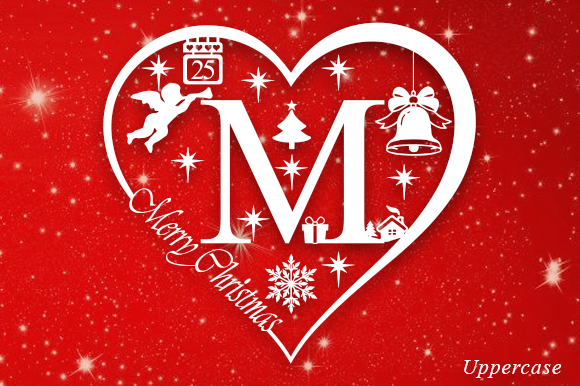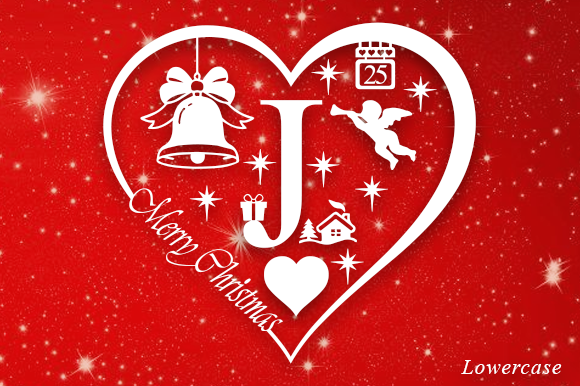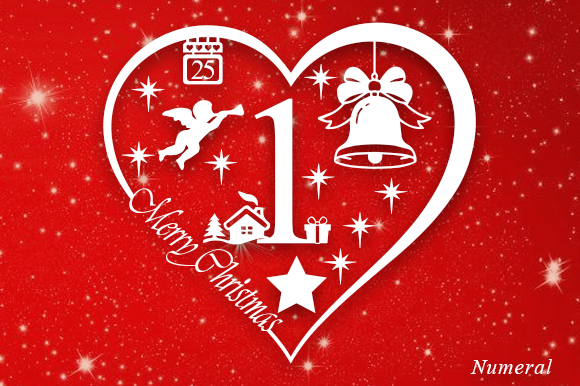
Introduction to Love Christmas Monogram Font
As the holiday season approaches, designers are on the lookout for that perfect font to bring their festive designs to life. Have you ever stared at a blank canvas, envisioning a breathtaking winter wonderland, only to be held back by a lack of the right design resource? That’s where the Love Christmas Monogram Font comes in – a stunning, high-quality font that’s sure to captivate your audience.
With its intricate details and beautiful swashes, this font is a must-have for any creative project. Whether you’re designing holiday cards, gift tags, or social media graphics, the Love Christmas Monogram Font is the perfect addition to your design arsenal. And the best part? It’s PUA encoded, making it easy to access all the glyphs and swashes you need, even on a transparent background.
Key Features of Love Christmas Monogram Font
- High-quality design for a festive and elegant look in creative projects.
- Comes in a single size, making it easy to use in various design contexts without scaling issues.
- Unique monogram design featuring a heart and Christmas elements, perfect for adding a touch of love and festivity to holiday projects.
Honest Review: Love Christmas Monogram Font
The font features a beautiful, intricate monogram design with a transparent background, making it easy to layer over any background image or color. This level of detail is impressive, especially considering it’s a free download.
Here are some things that work well with this font:
- ✨ High-quality design that’s perfect for holiday projects
- ✨ Transparent background for easy layering
- ✨ Elegant and intricate monogram design
- ⚠️ Limited character set, may not be suitable for extensive text-based projects
- ⚠️ Not ideal for use in small text sizes, may become pixelated
Overall, I’m impressed with the Love Christmas Monogram Font. It’s a great addition to any designer’s toolkit, especially during the holiday season. With its high-quality design and free download, it’s a must-have for any creative project.
The Love Christmas Monogram Font is ideal for holiday-themed designs, such as Christmas cards, invitations, and social media graphics. It can also be used for other creative projects, including wedding invitations, party decorations, and gift tags.